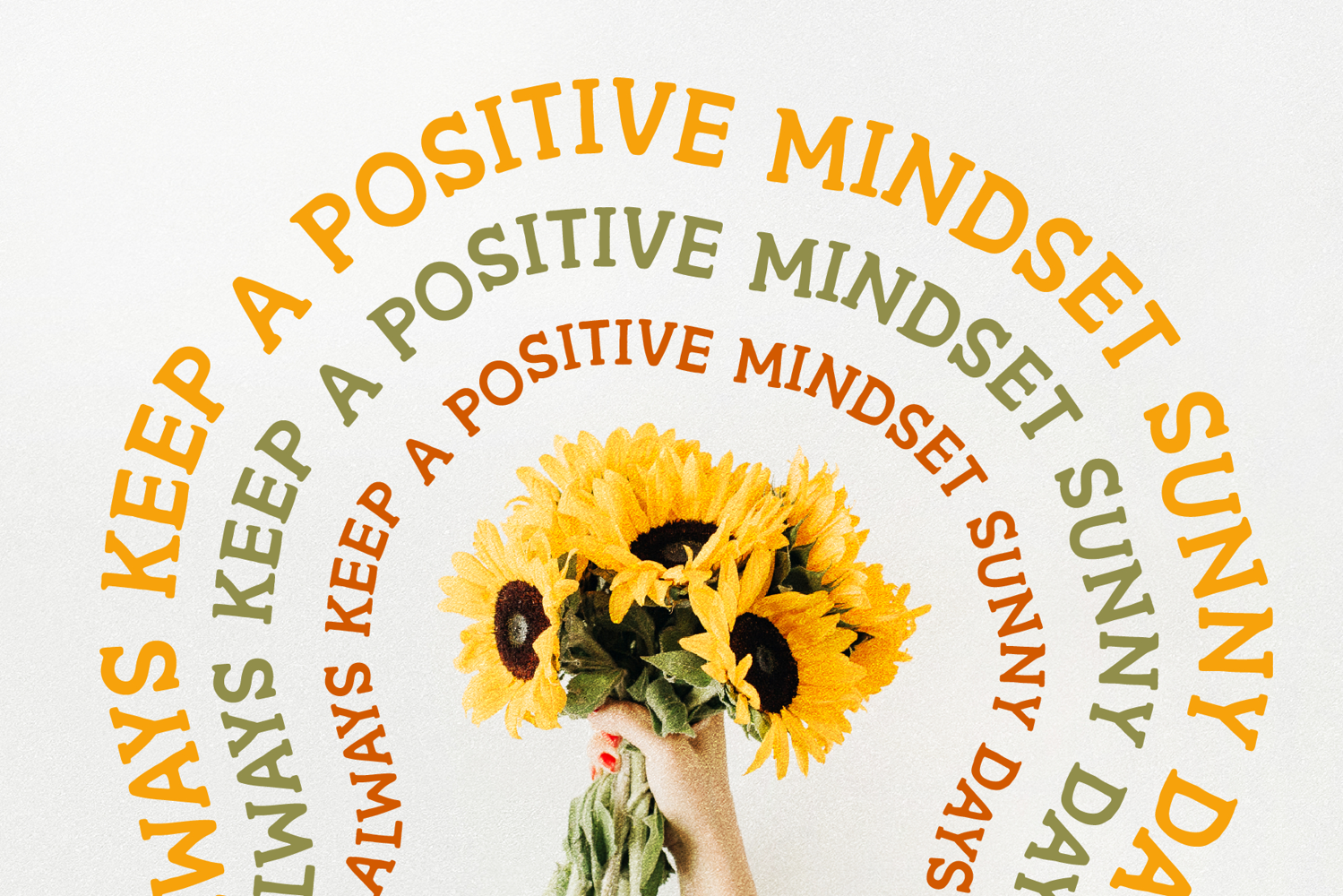
Positive Mindset - A Handmade Serif Font
Introducing Positive Mindset – a charming handmade font showcases a delightful, imperfect aesthetic that brings a warm, inviting feel to any text.
Perfect for posters, invitations, craft projects, greeting cards, branding, social media or any project that needs a splash of authenticity and fun.
FONT FEATURES
• All caps characters
• Numbers, punctuation, symbols
• Standard characters (2 sets uppercase, numbers, punctuation, symbols)
• Supported Languages: Danish, English, Filipino, Finnish, French, Friulian, Galician, German, Irish, Italian, Low German, Luxembourgish, Norwegian Bokmål, Norwegian Nynorsk, Spanish, Swedish, Swiss German, Turkish